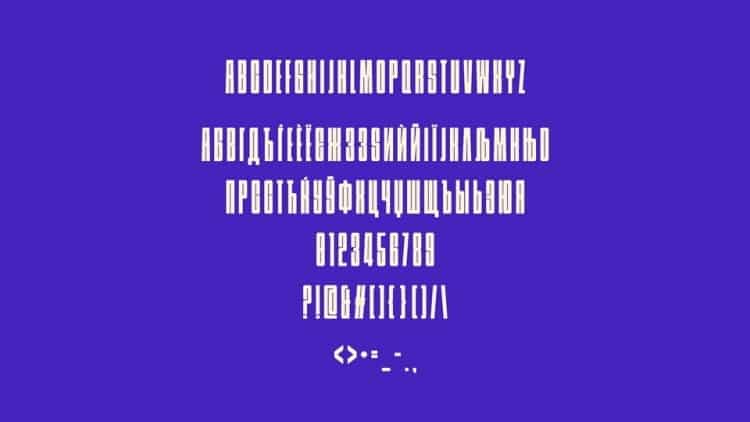
Stadium Cyrillic Display Font
If you are looking for an artistic font for labels, covers, posters and other design projects, then this type is probably for you. This font features a medium-low x-height and works very well at larger display sizes. It can be used to write inscriptions on the labels or packaging of creative design.